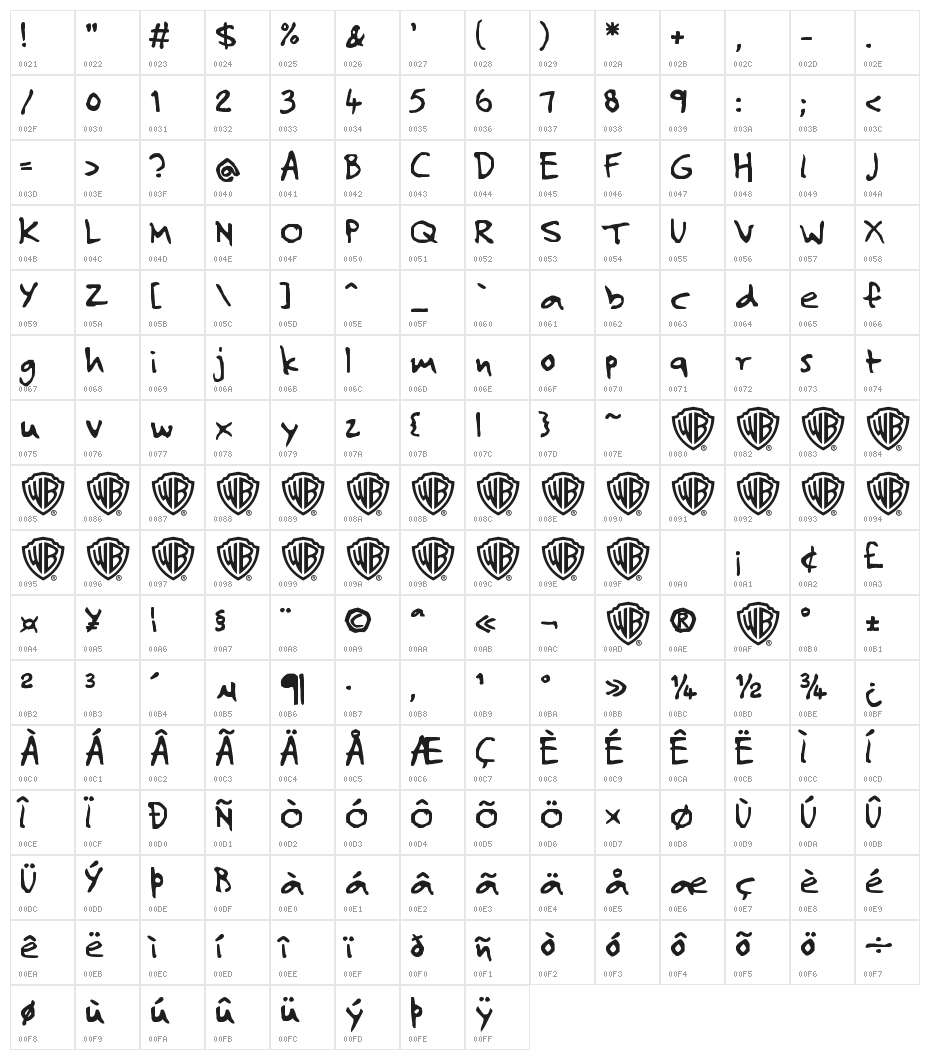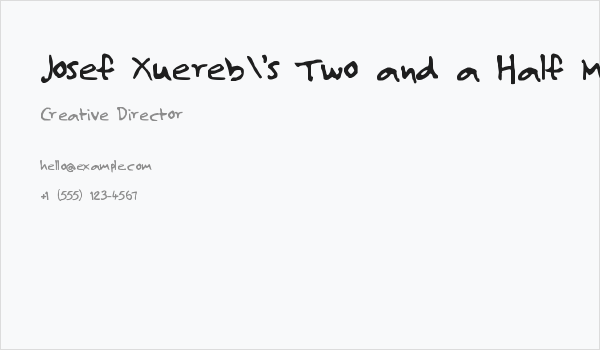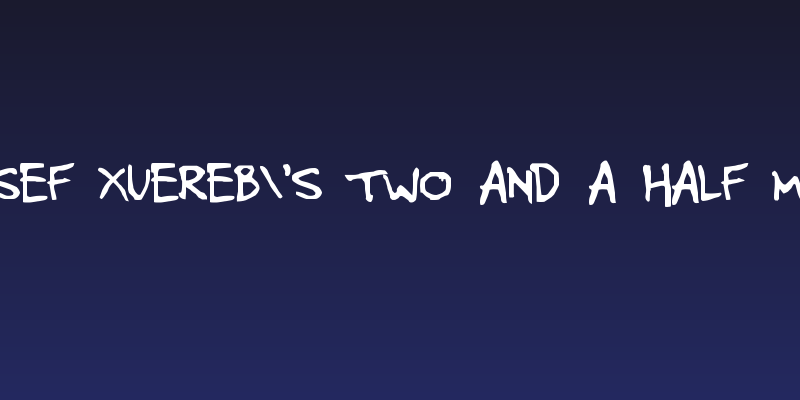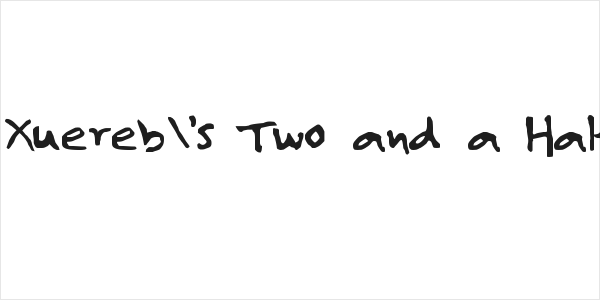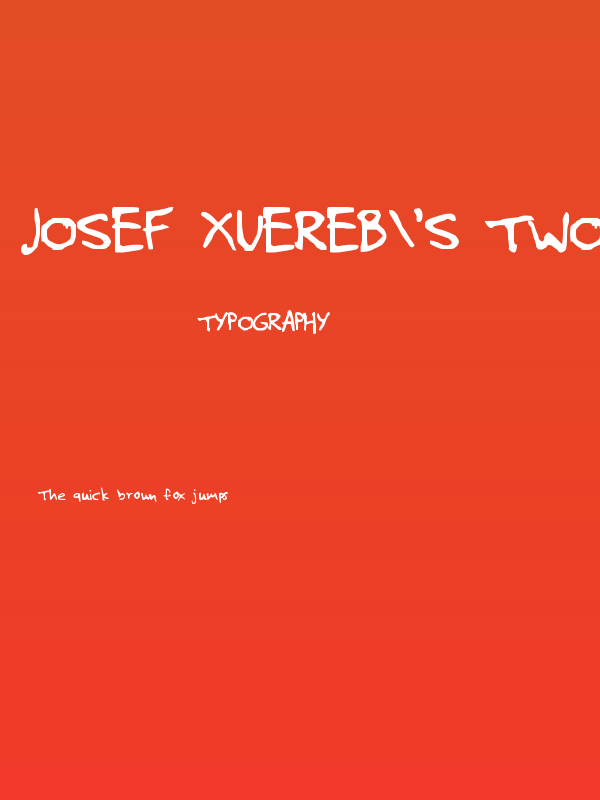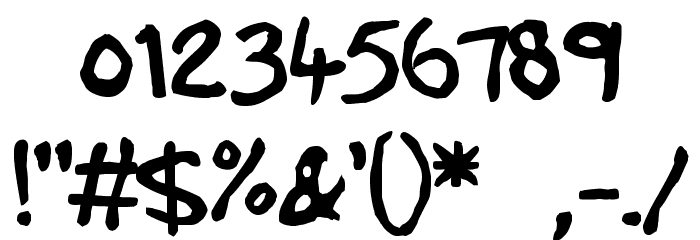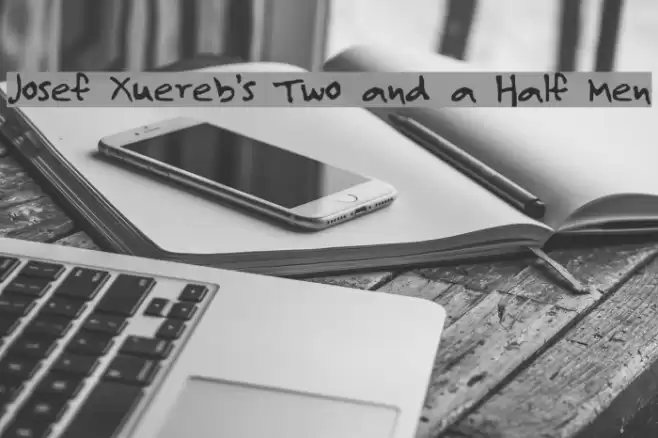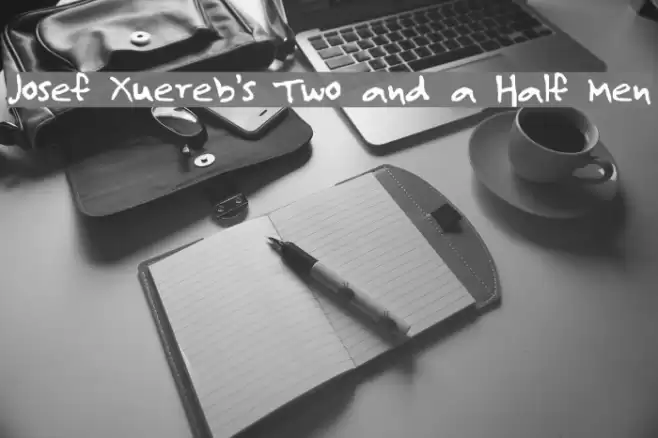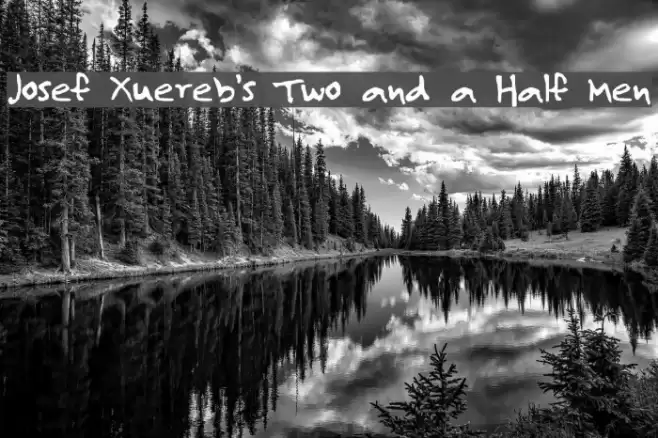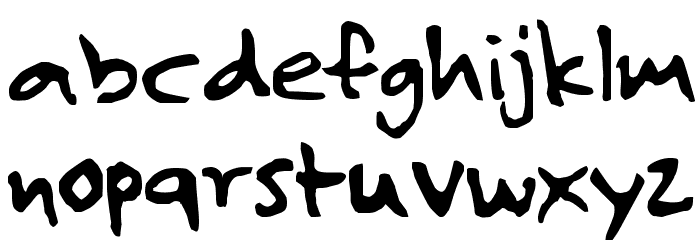
Josef Xuereb's Two and a Half Men Font
Josef Xuereb's Two and a Half Men Description
This font exhibits a playful and informal handwritten style, characterized by its bold and uneven strokes. The letters have a casual, almost doodle-like appearance, with varying heights and widths that add to its charm. The uppercase and lowercase letters maintain a consistent style, while the numbers and special characters blend seamlessly with the overall design. The font's organic and spontaneous feel makes it ideal for projects that require a personal touch or a sense of whimsy.
| Overall Style | Casual, Playful |
| Use Case | Headlines, Logos, Informal Text |
| Proposed Projects | Ideal for greeting cards, children's books, casual posters, and creative branding. |